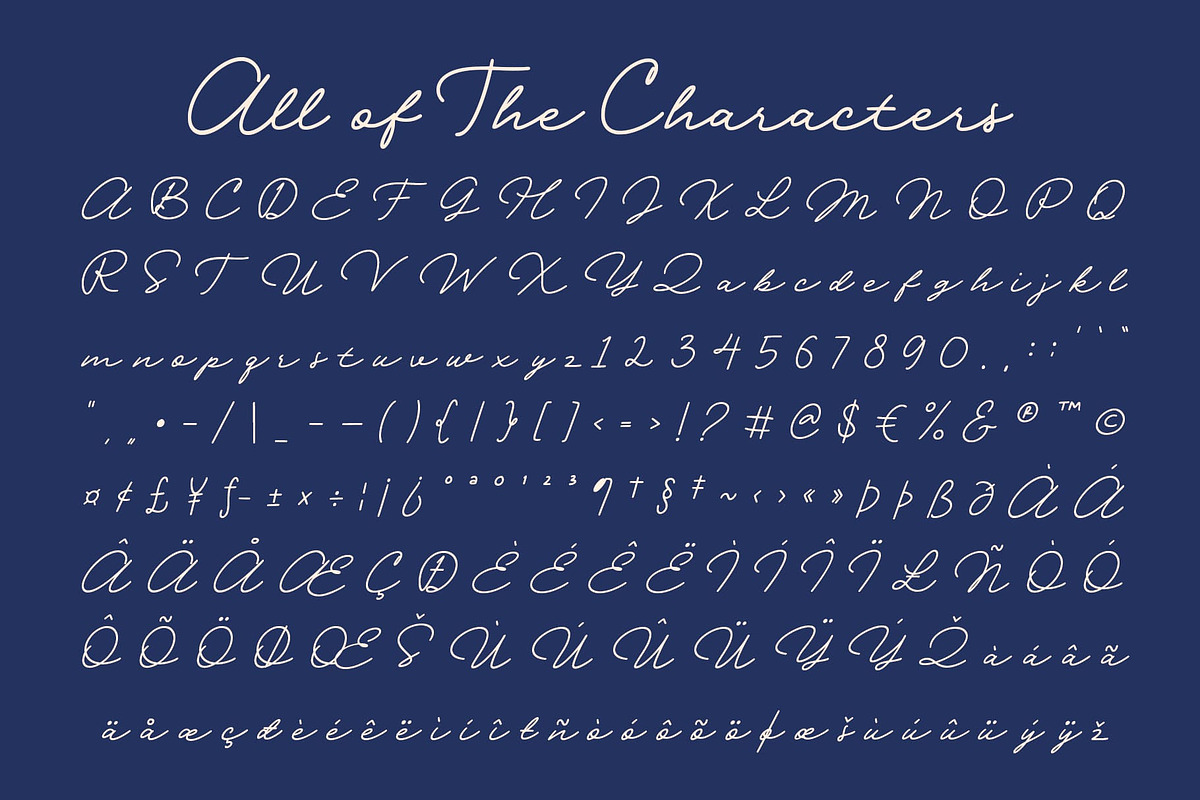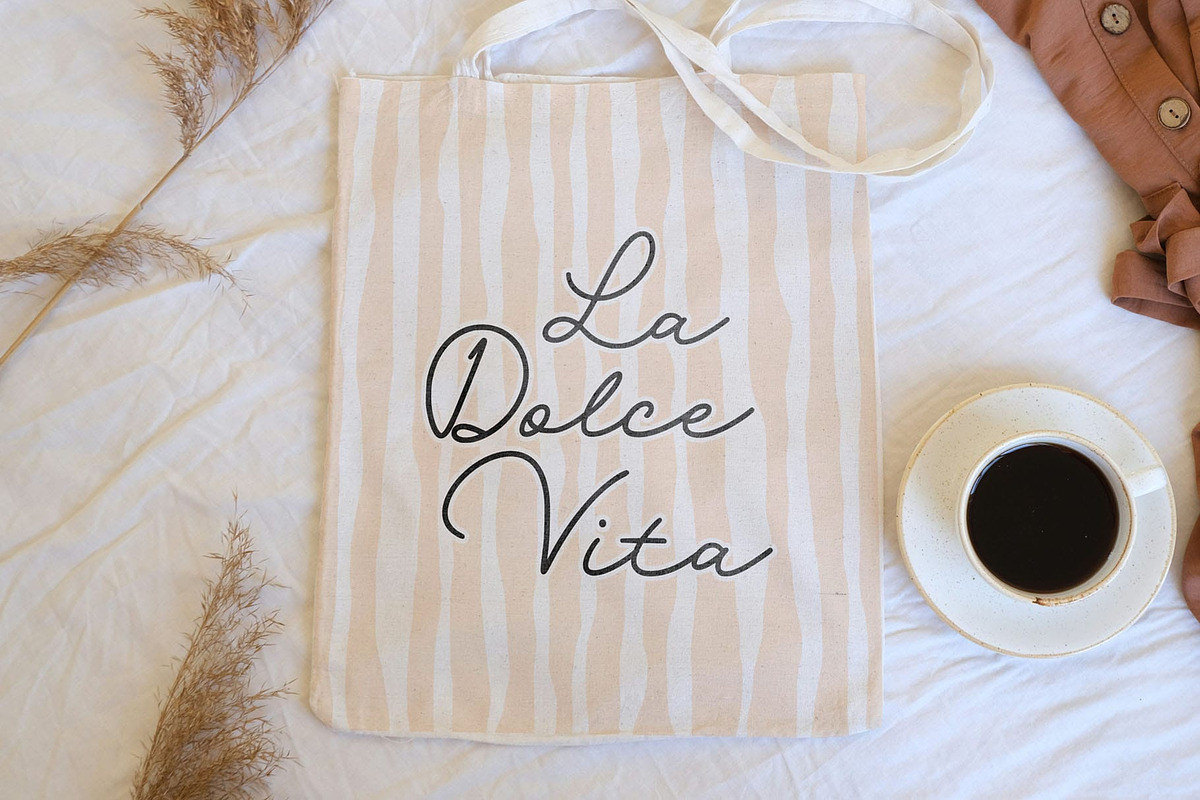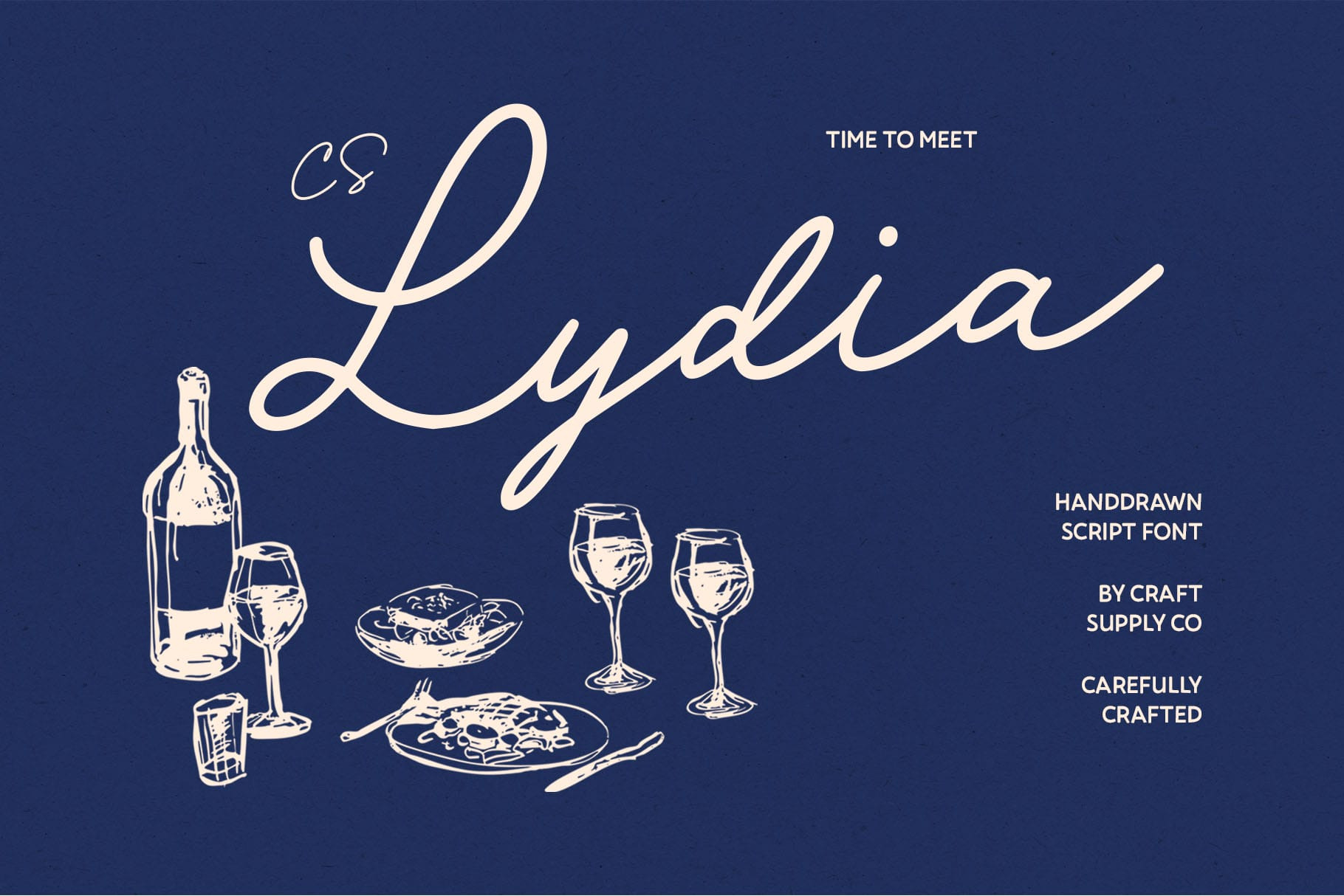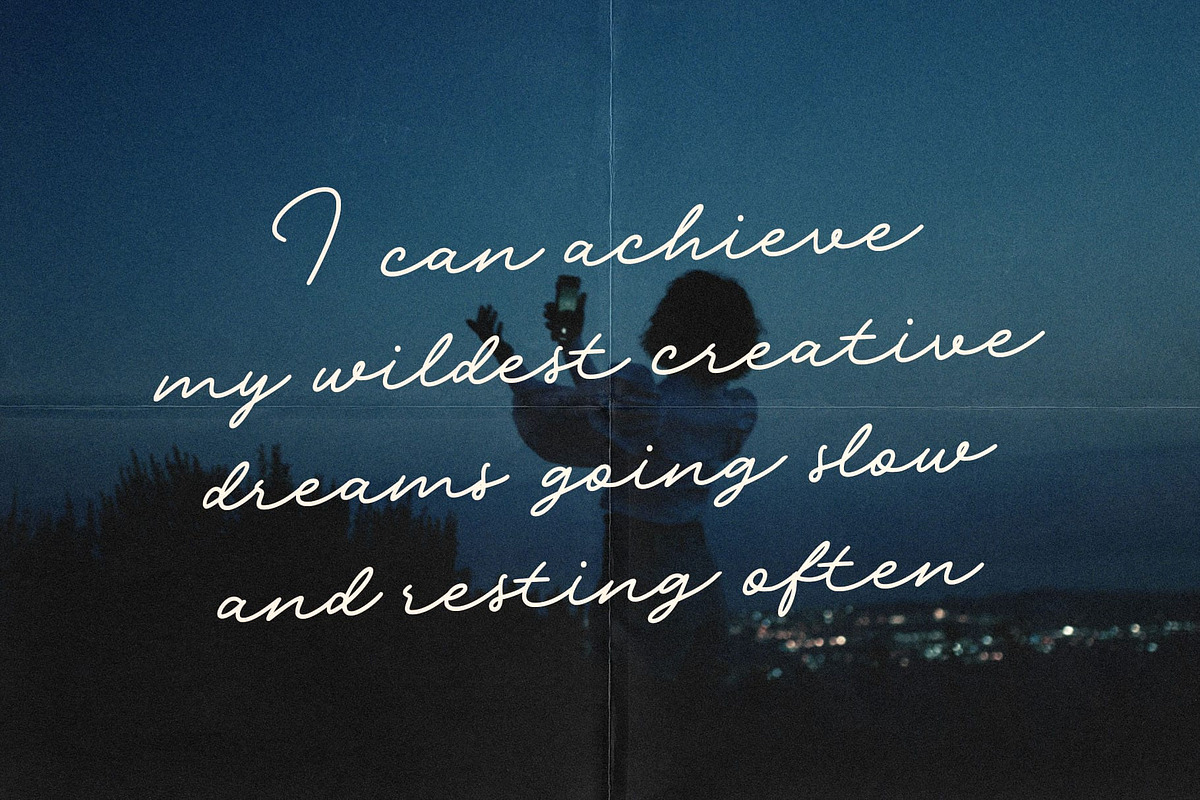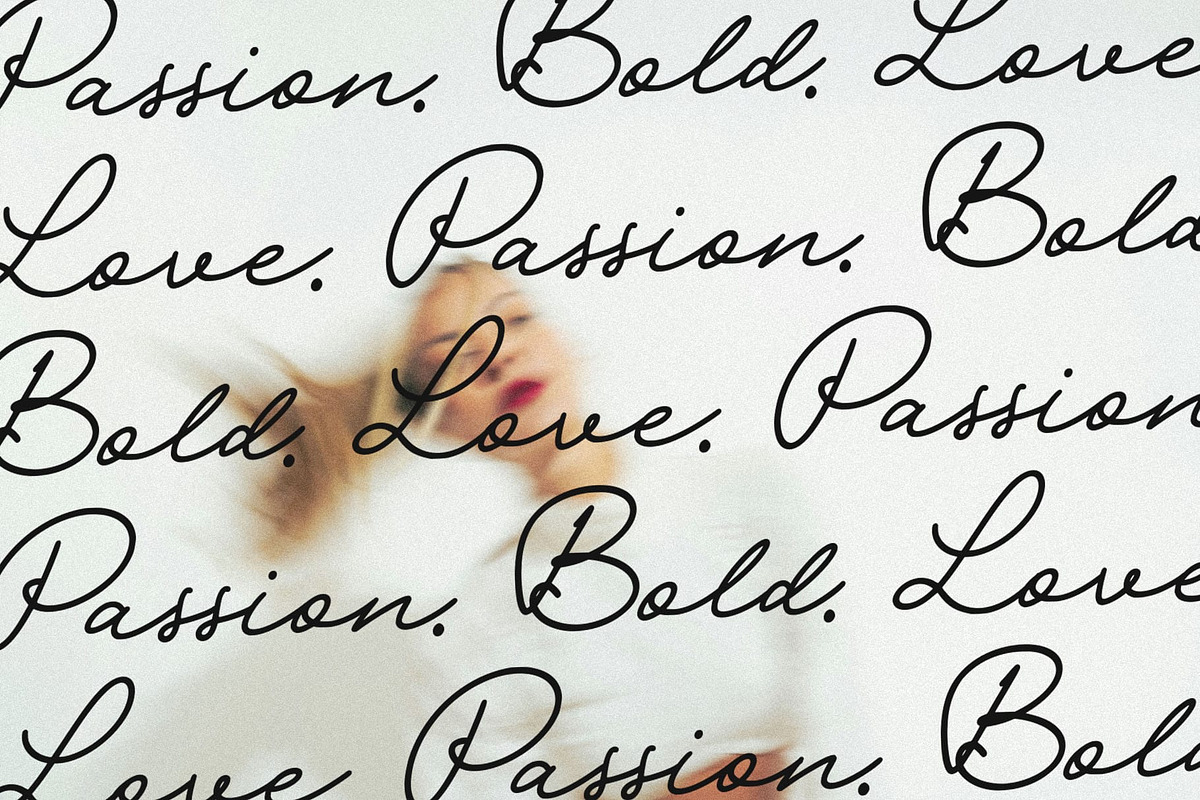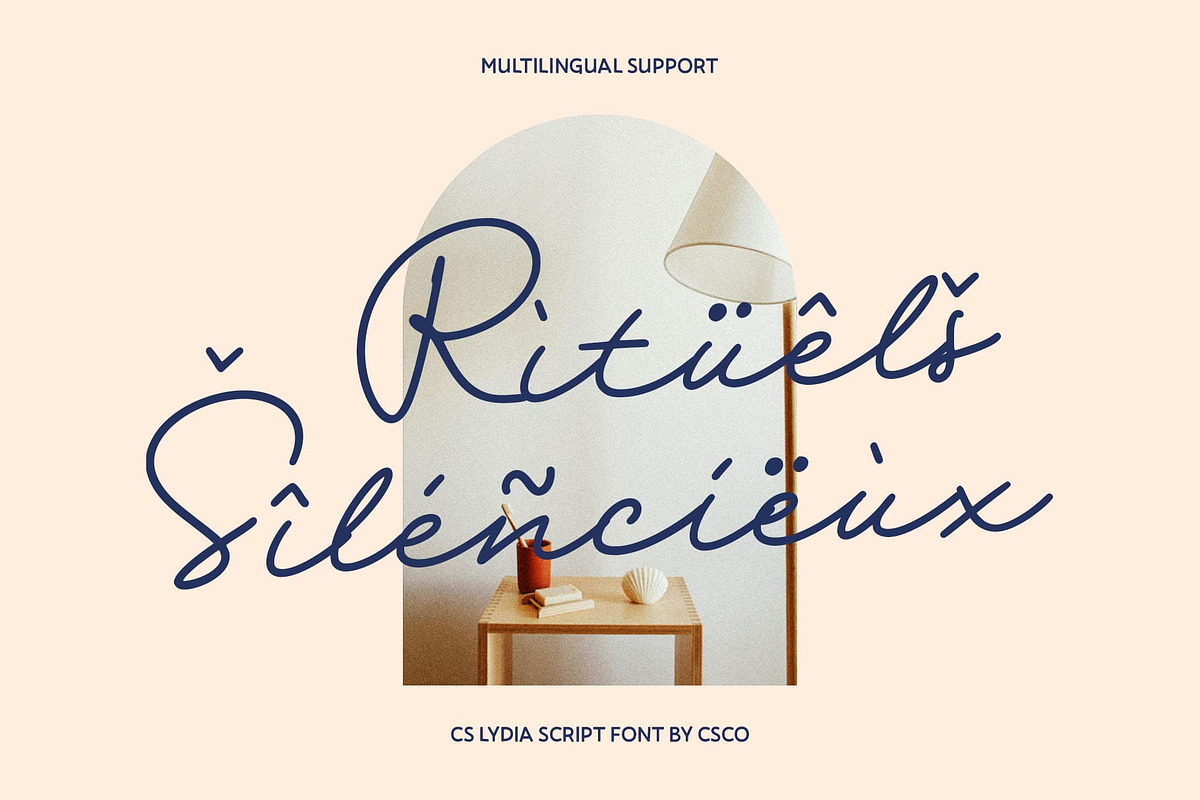
CS Lydia – Handwritten Script Font
CS Lydia – Handwritten Elegance with Mediterranean Grace
Romantic Script with Timeless Beauty This is a romantic and stylish handwritten script font that flows effortlessly with Mediterranean elegance. Its smooth, graceful curves and refined letterforms capture the essence of natural beauty and sophistication, making it a perfect choice for designs that seek a personal yet luxurious touch.
Elegant Flow for Refined Expression Each stroke of this font is crafted to convey fluidity and charm, creating a visual rhythm that feels both intimate and elegant. The gentle movement of its script lines adds warmth and emotion, ideal for projects that want to evoke romance, grace, and authenticity.
Natural Sophistication in Every Detail Blending the spontaneity of handwriting with polished refinement, this font strikes the perfect balance between natural flow and professional finish. Its organic elegance makes it versatile enough for both modern and classic design aesthetics.
Perfect for Elegant and Luxurious Designs From wedding invitations and upscale branding to refined packaging and editorial layouts, this font brings a touch of timeless beauty and heartfelt sophistication. It’s the perfect font for creators who want to express elegance, emotion, and Mediterranean-inspired charm through their typography.
- CS Lydia Regular
- CS Lydia Italic
- CS Lydia Reverse Italic